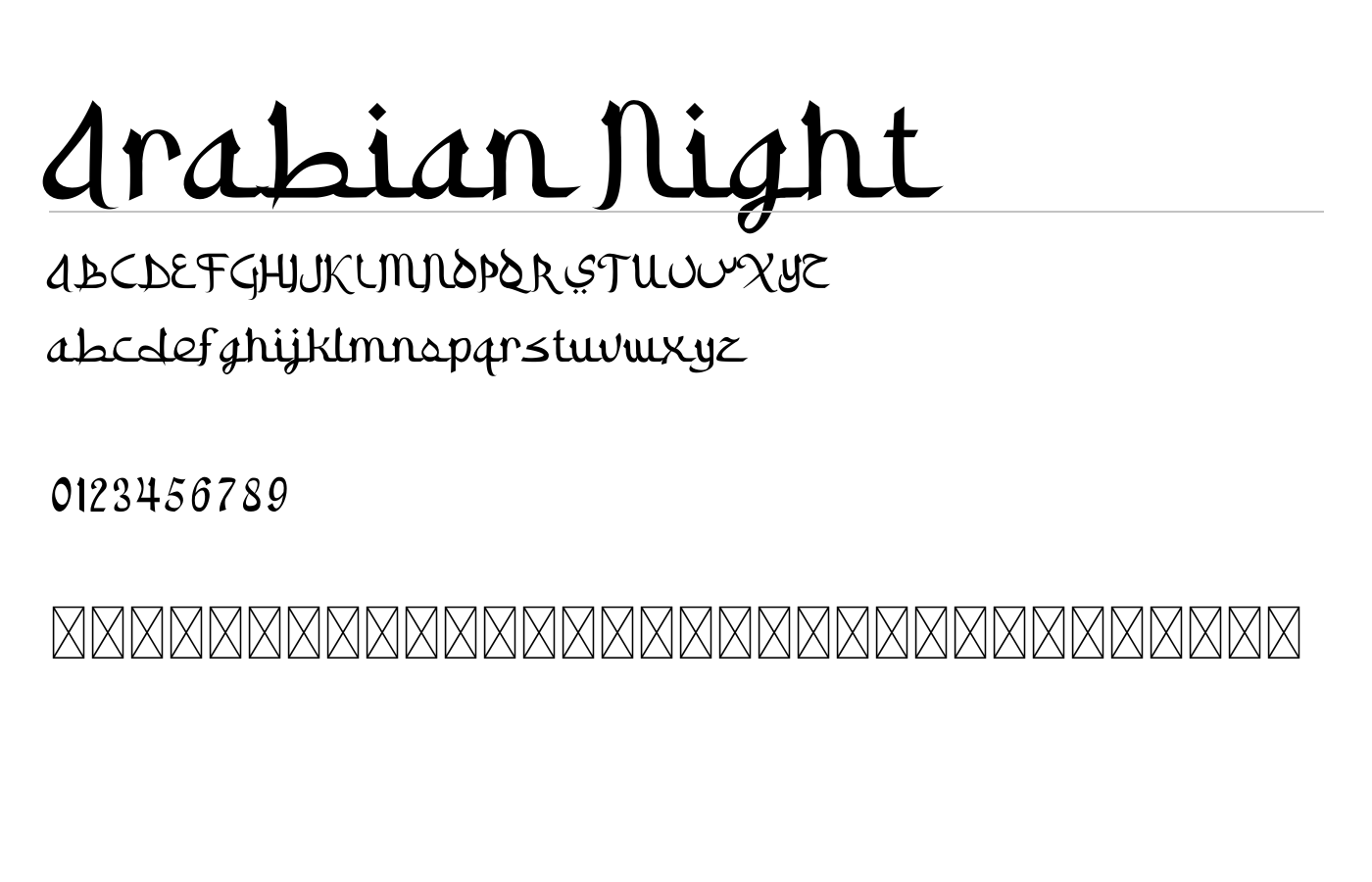
Arabian Night is a decorative serif font with a unique, hand-drawn look that combines sharp, angular strokes with fluid, calligraphic curves. Its tall, narrow letterforms and irregular details give it an exotic, whimsical feel perfect for themed designs, headlines, or branding that seeks a distinctive, artistic flair inspired by Middle Eastern aesthetics. This font works well in display uses where its intricate style can shine without sacrificing legibility.
Arabian Night Font
About Arabian Night Font